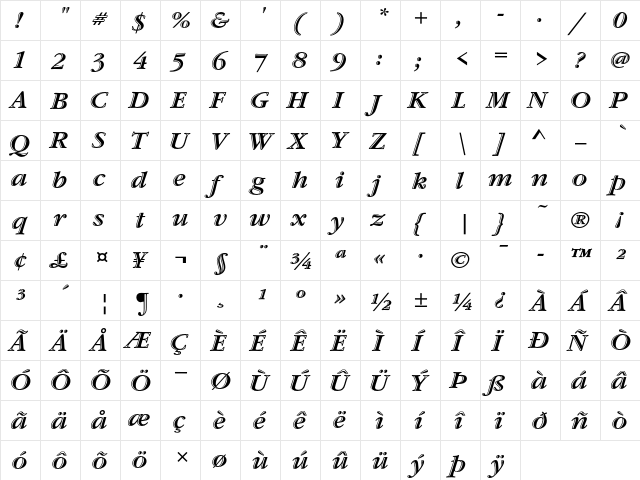
Garamond Handtooled ITC Italic
Design Context for Garamond Handtooled ITC Typeface
Garamond Handtooled ITC flows with the natural rhythm of handwritten lettering, making it ideal for designs that call for warmth and personal expression.
Font Pairing: Combine Garamond Handtooled ITC with a simple geometric sans for maximum contrast — the tension between flowing curves and clean structure is a classic typographic pairing.
Pro Tip: Use Garamond Handtooled ITC for short runs of text — names, titles, or taglines. Extended body copy in script faces tires the eye quickly.